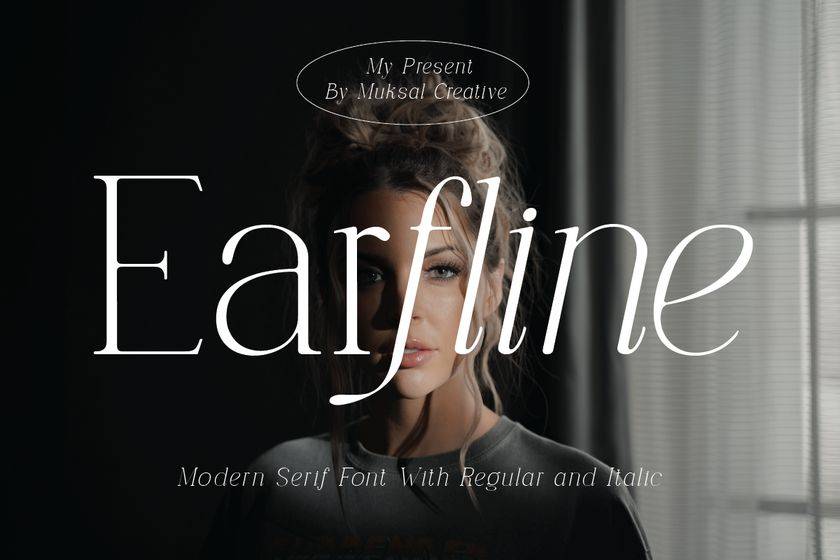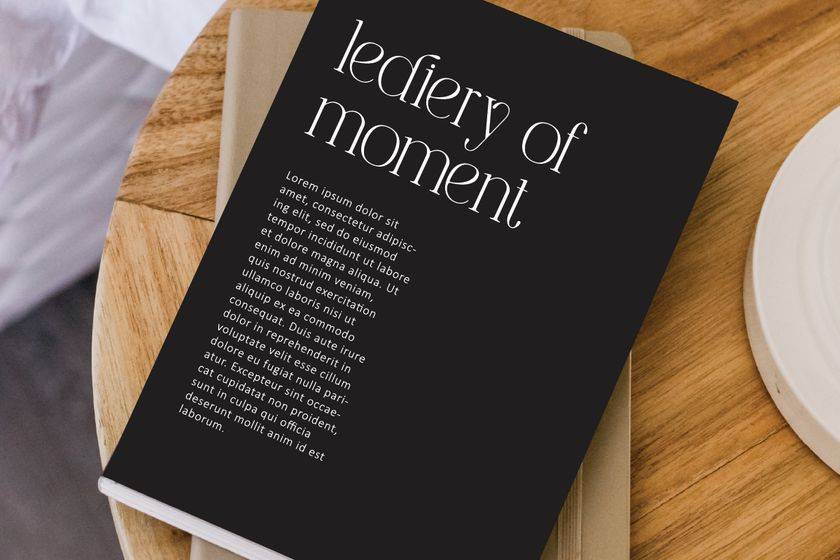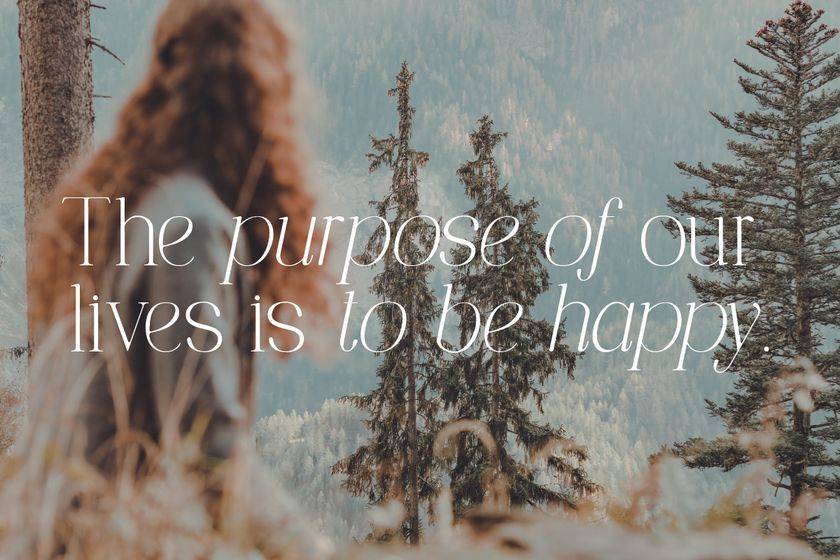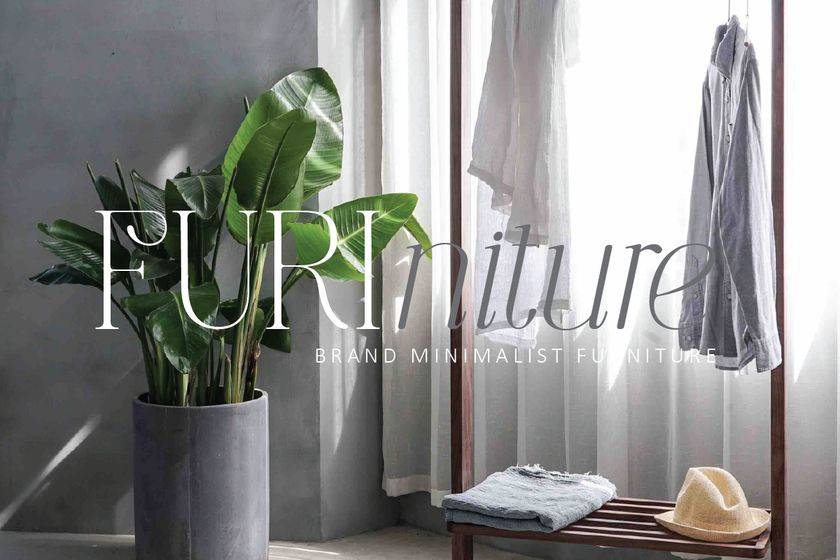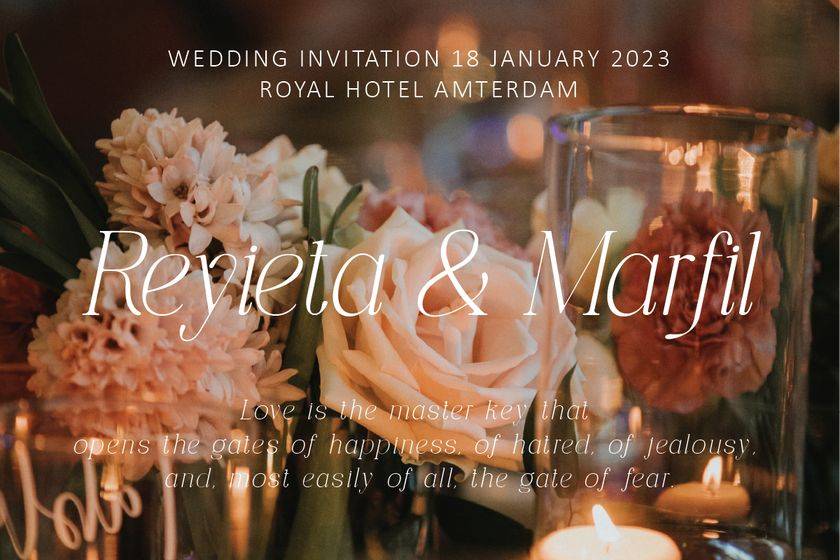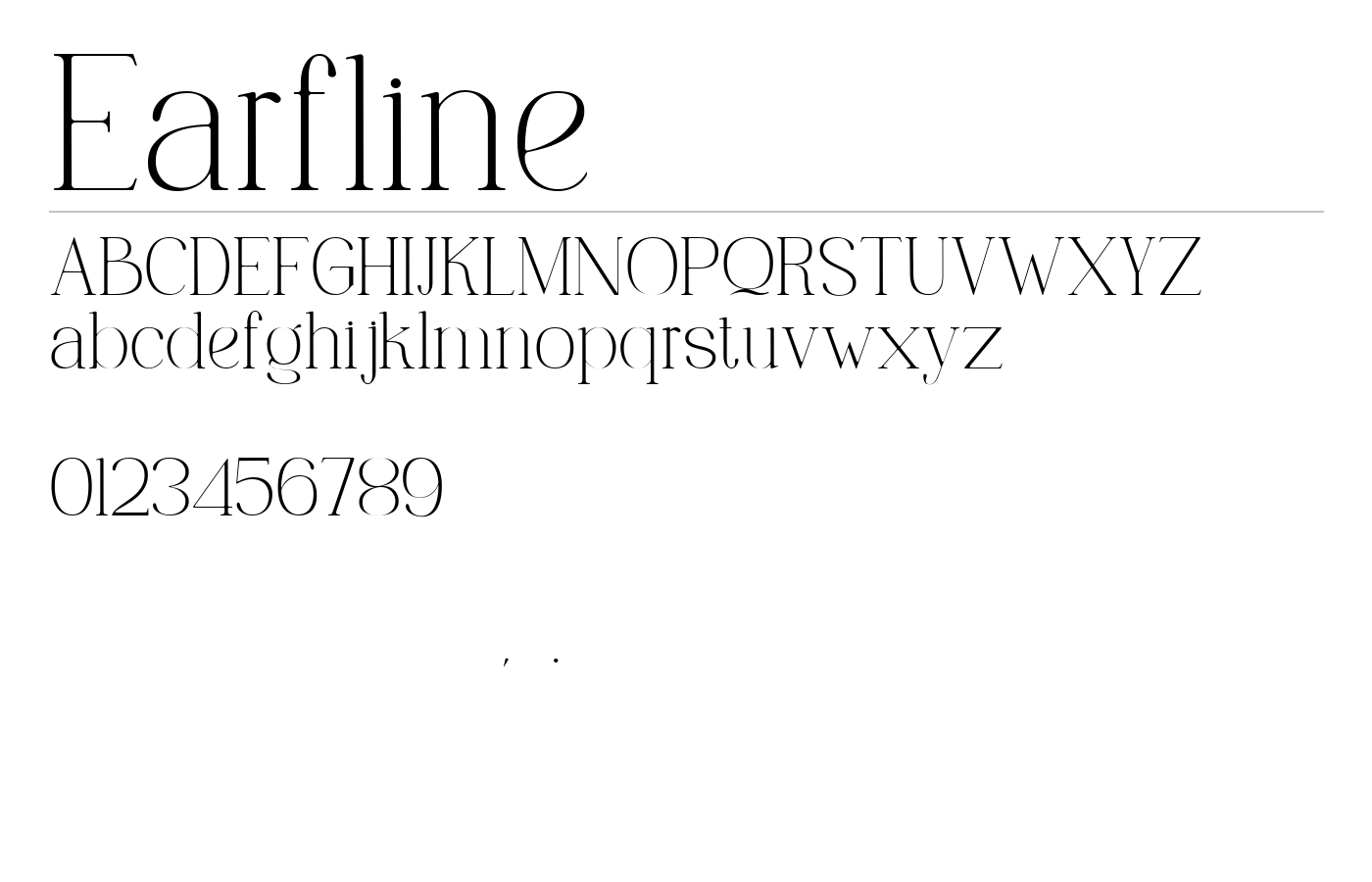
Earfline is an elegant serif font characterized by its thin strokes and high contrast between thick and thin lines, giving it a refined and sophisticated look. Its tall, narrow letterforms with delicate curves and subtle details make it perfect for luxury branding, editorial headlines, and fashion-focused designs where a stylish, modern, and graceful impression is desired. This font works well in contexts that call for a minimalist yet classy aesthetic, enhancing readability while conveying a sense of exclusivity.
Earfline Font
About Earfline Font
| Font family | Earfline Font |
| Designer | Muksal Creative |